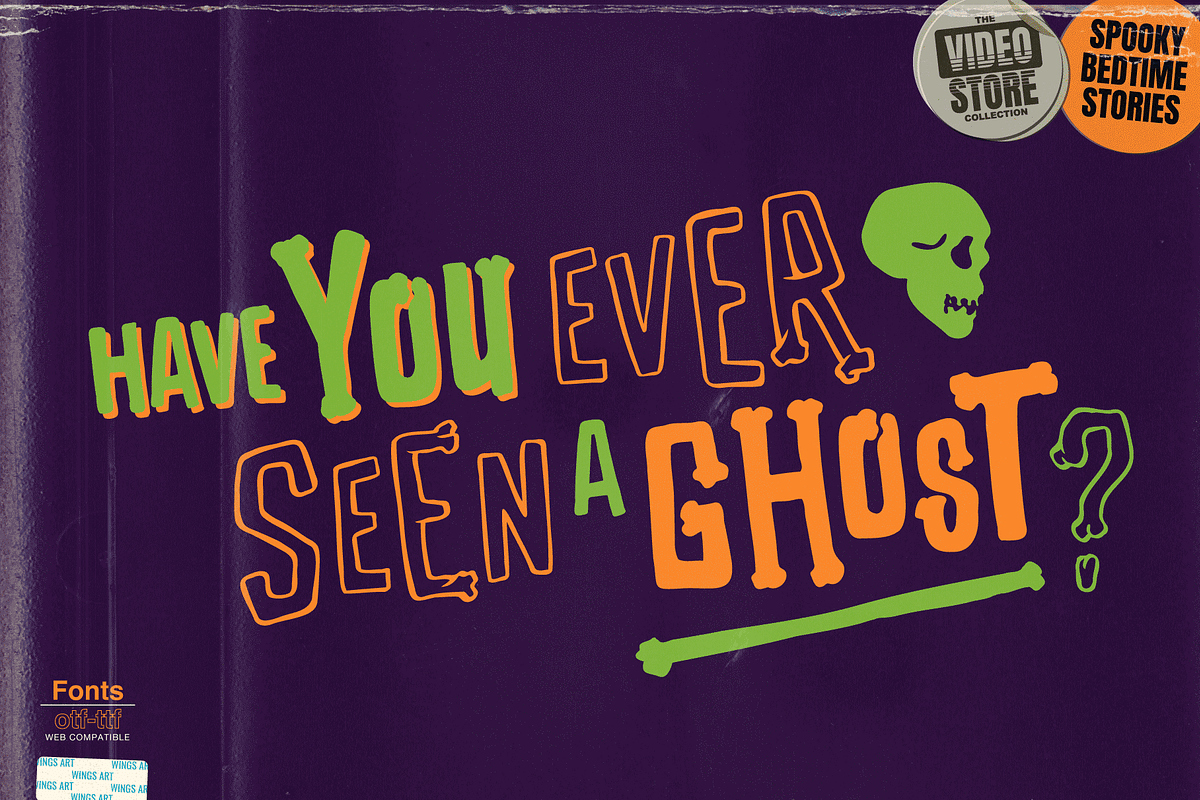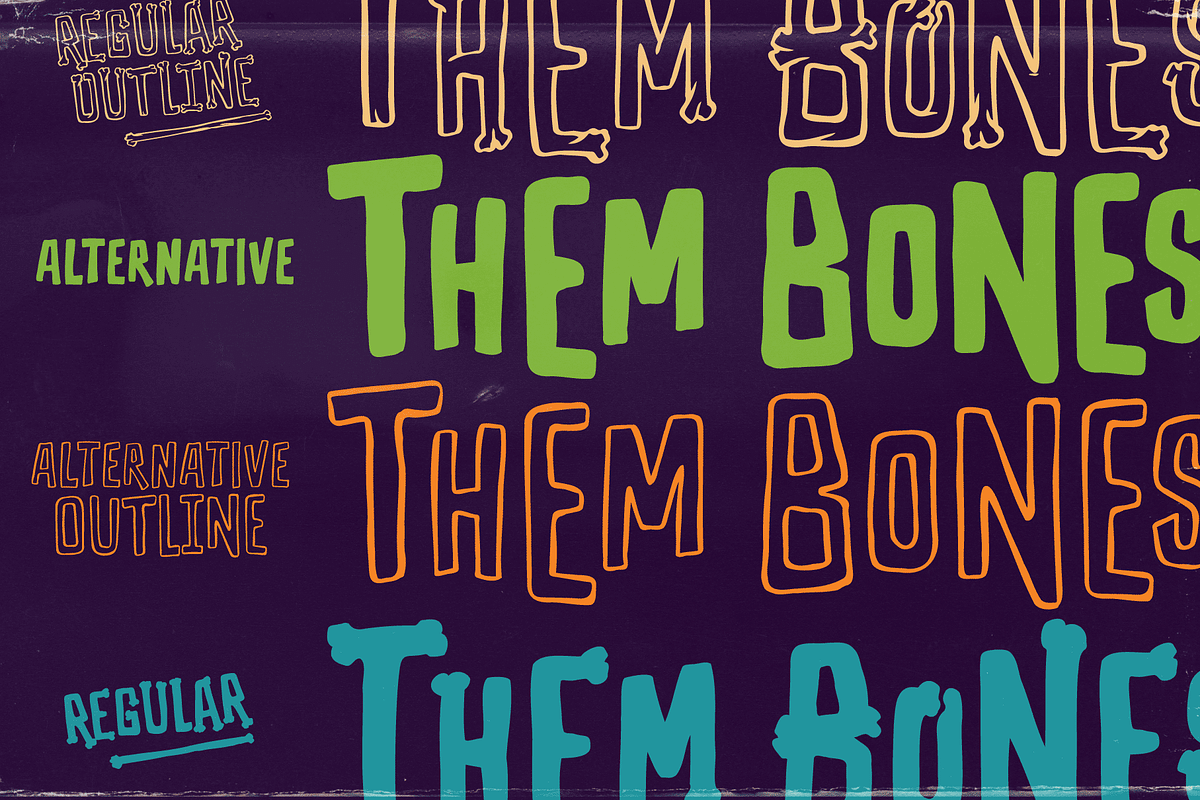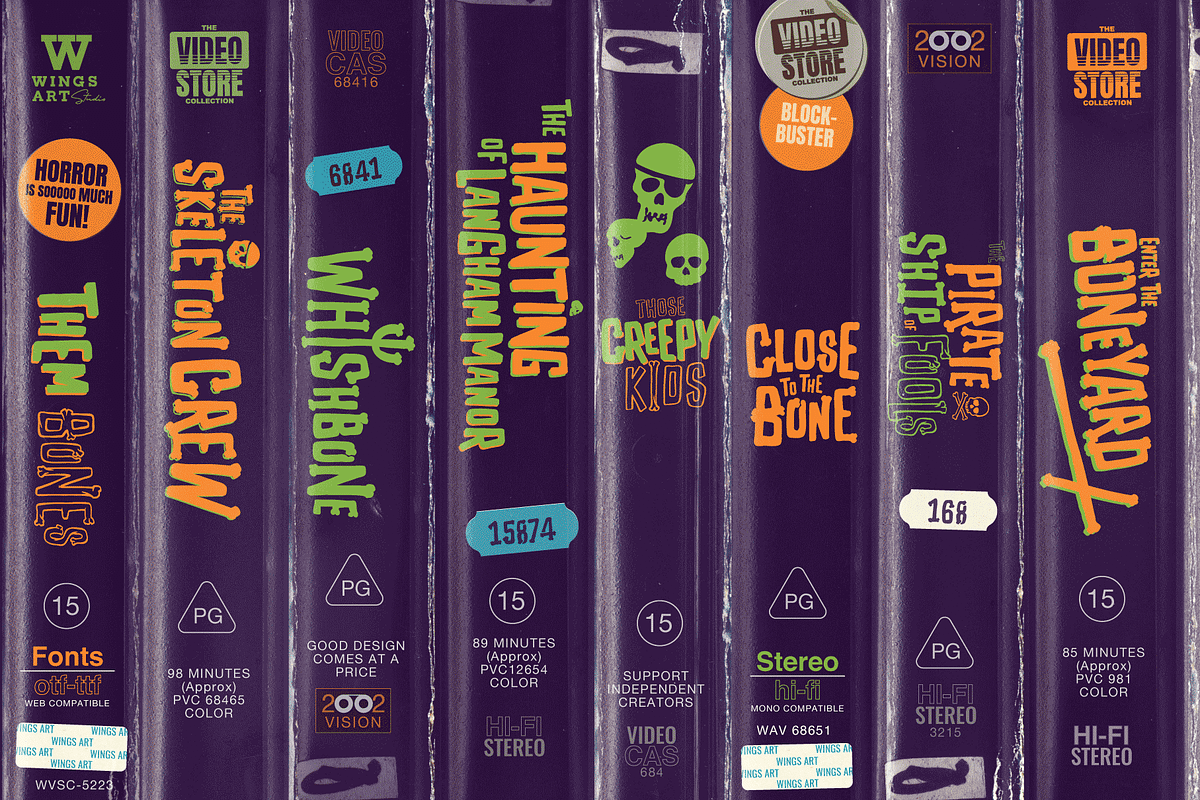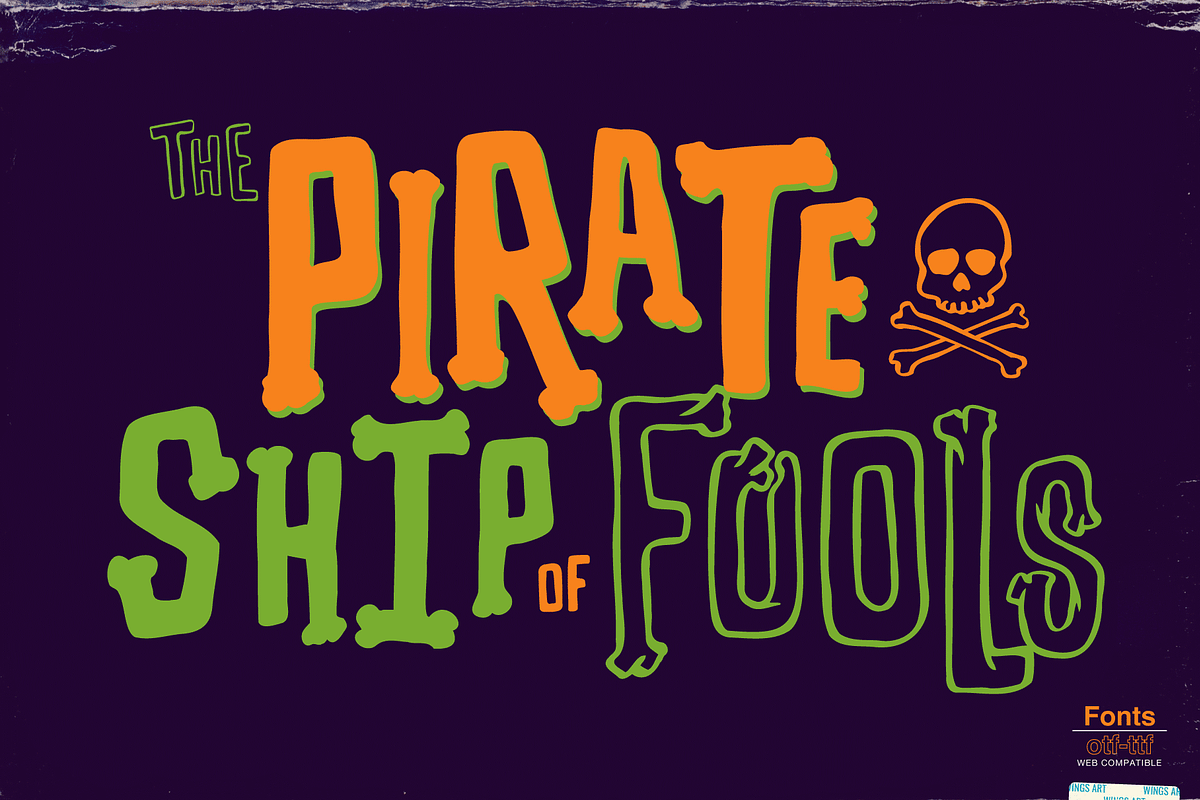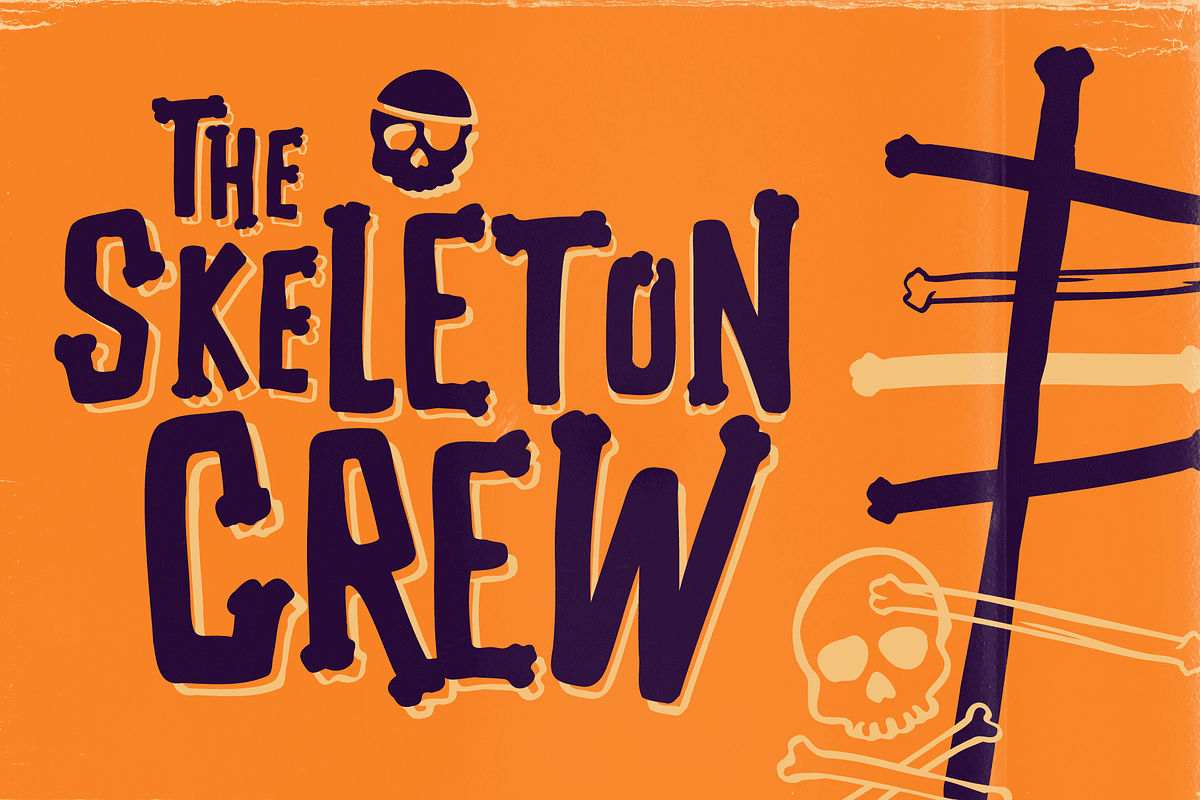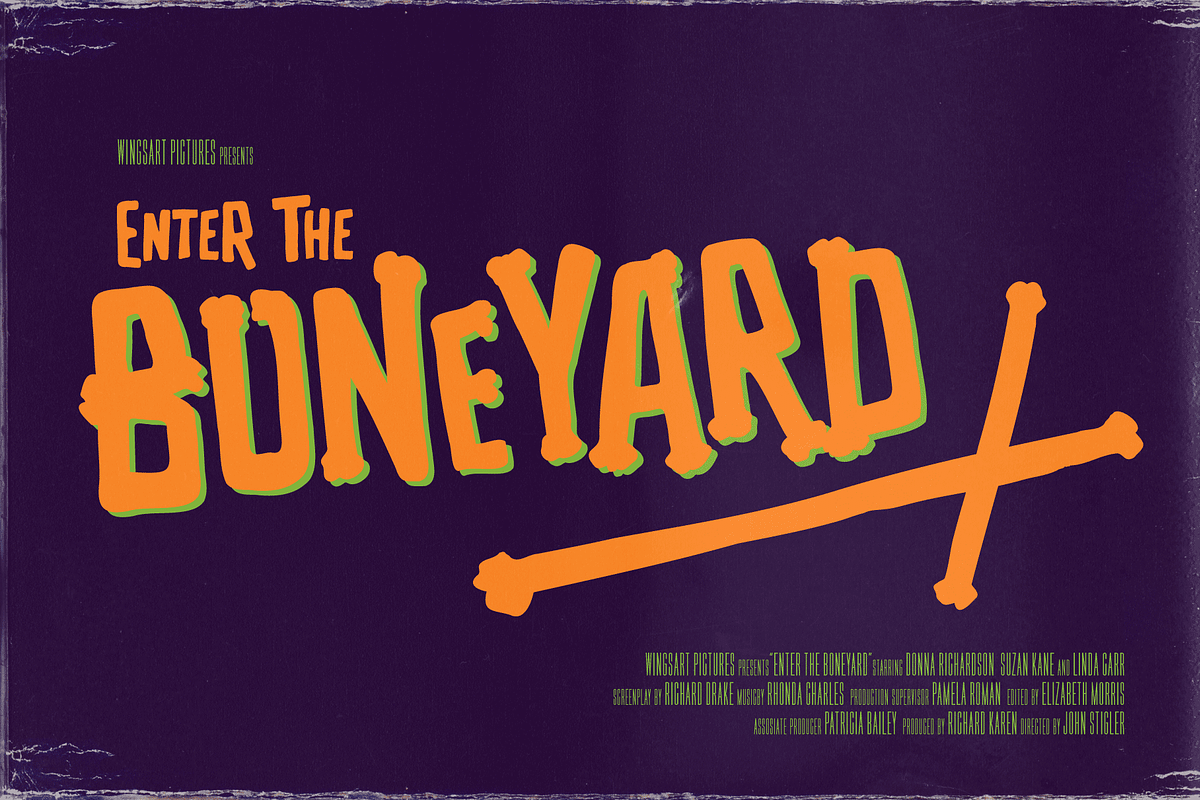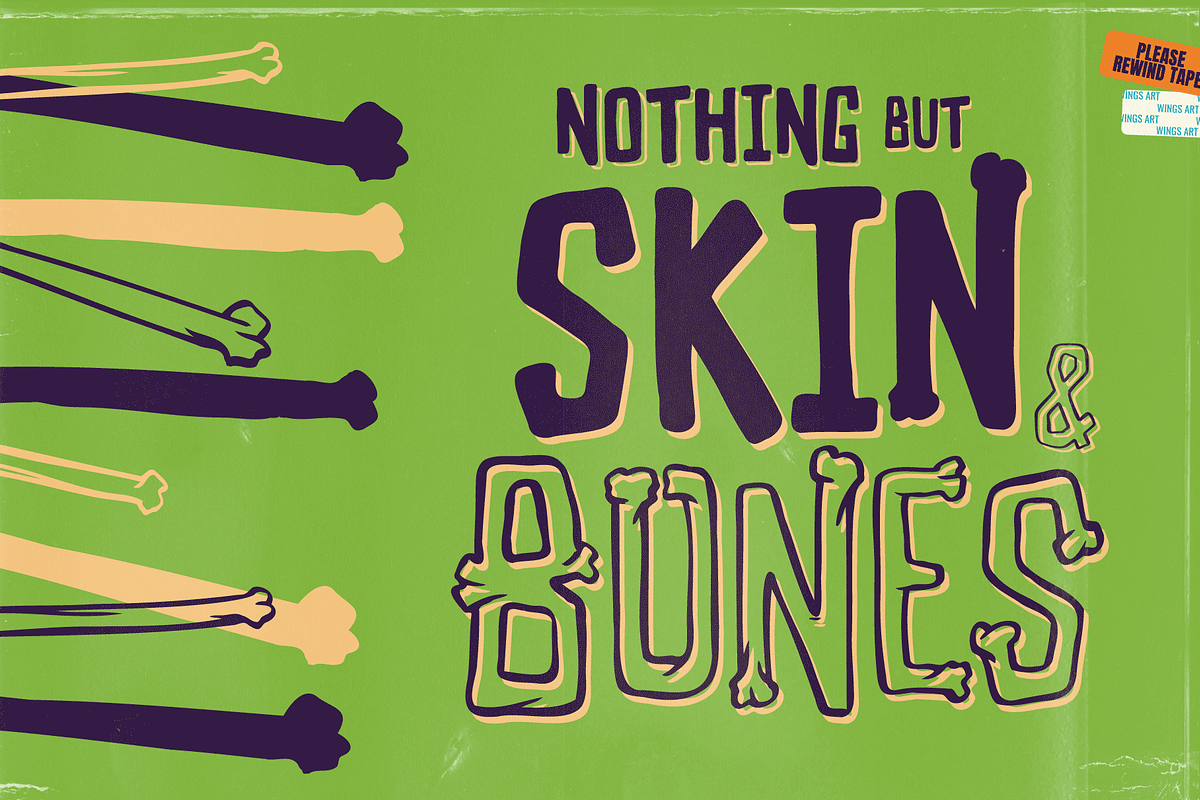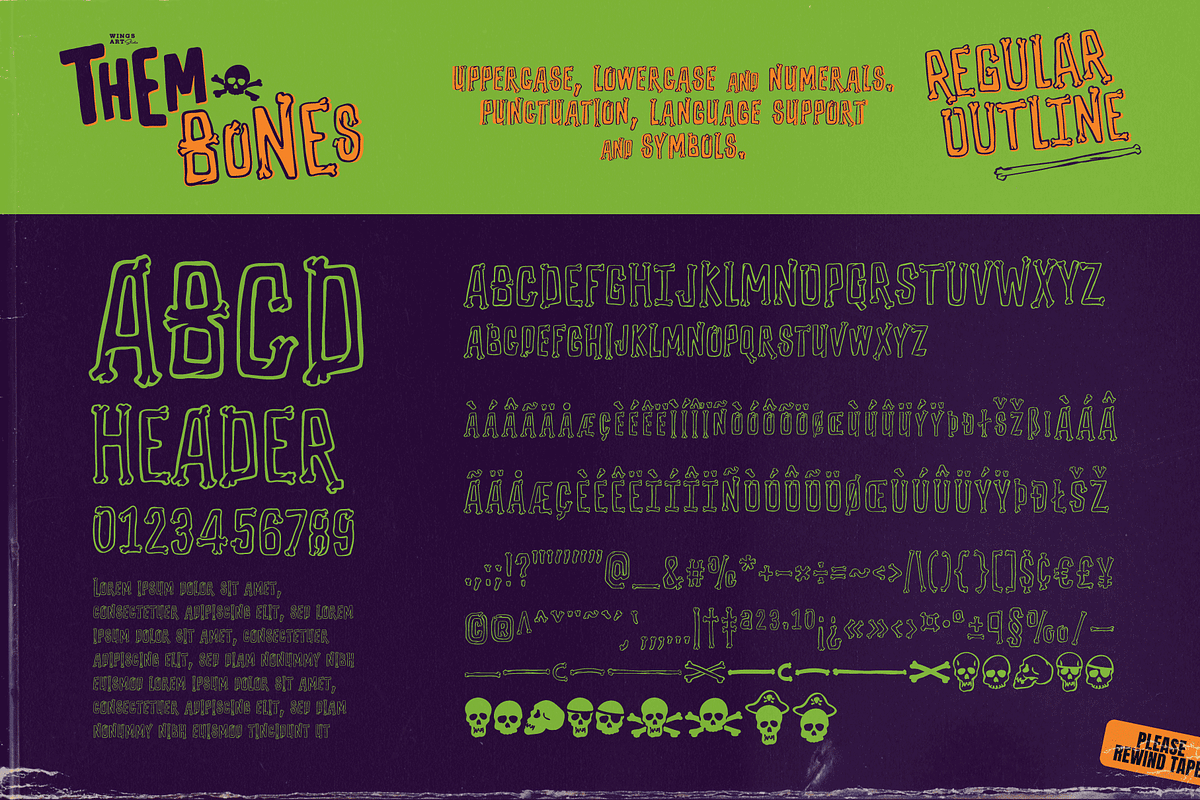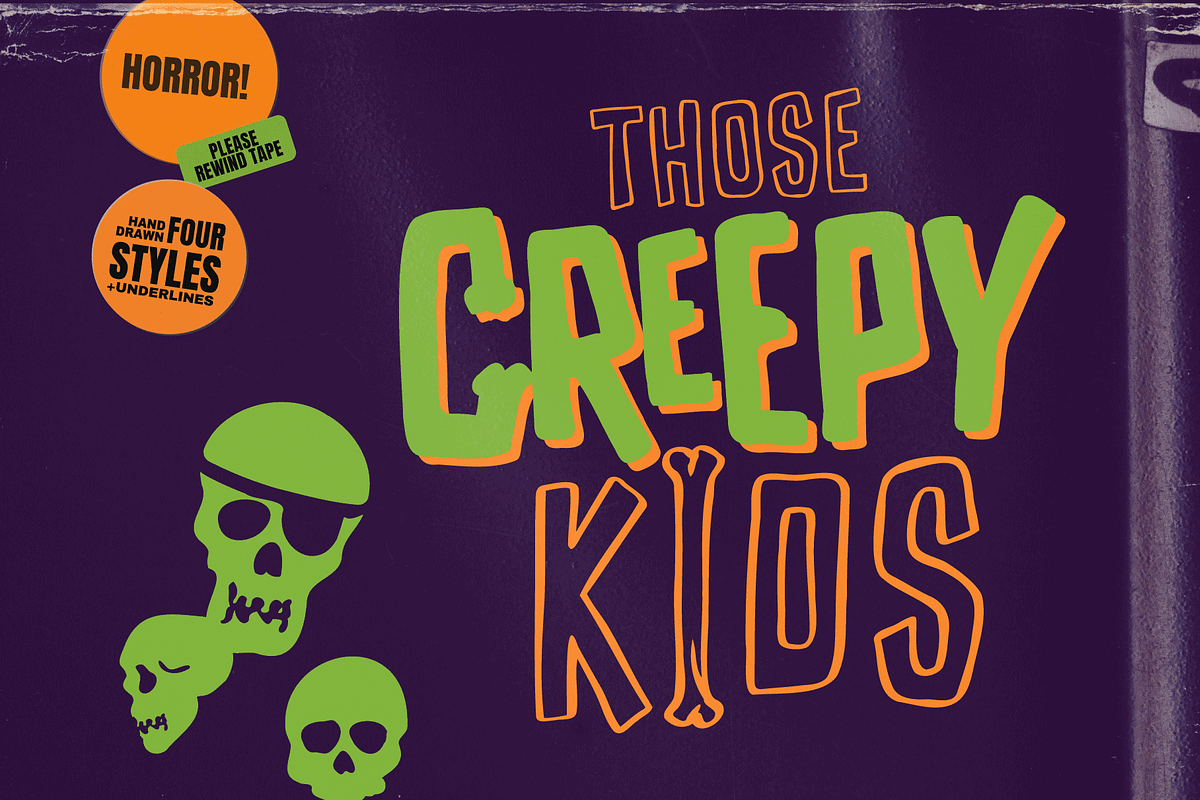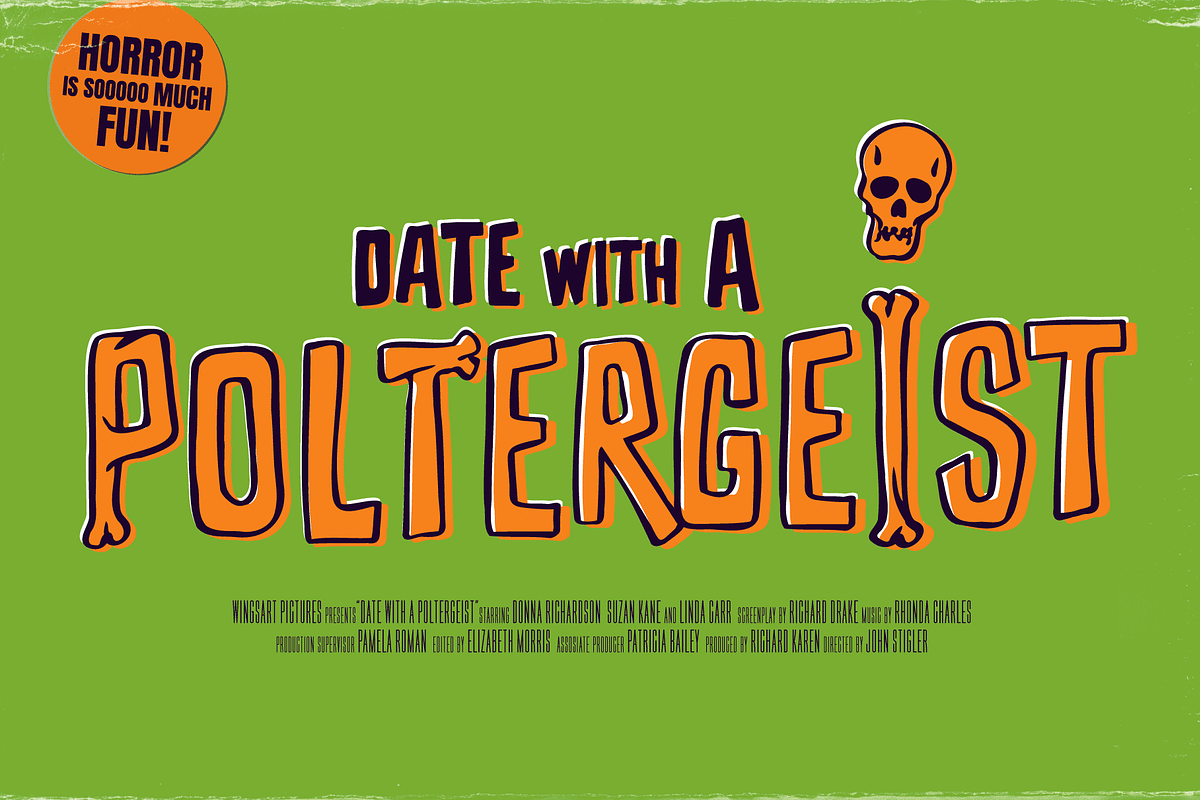
Them Bones: A Novelty Halloween Font
Them Bones - A Hand-drawn, Spooky, Halloween Ghost Pirate, Cartoon Font.
Them Bones is a hand-drawn and spooky font made from the remains of ancient skeletons and ghostly pirate ships. It has a fun, light-hearted design inspired by campfire tales, Saturday morning cartoons, kids adventure movies and vintage comic books.
This unique all-caps font comes in two flavours - a novelty design that’s drawn to appear like old bones, and a clean, versatile alternative that works great on it’s own or as contrasting characters. Each of these come with a hand-drawn outlined version with their imperfections intact for an authentic inky look.
It’s a great choice for light-hearted Halloween designs or adventure stories with a fun, gruesome edge!